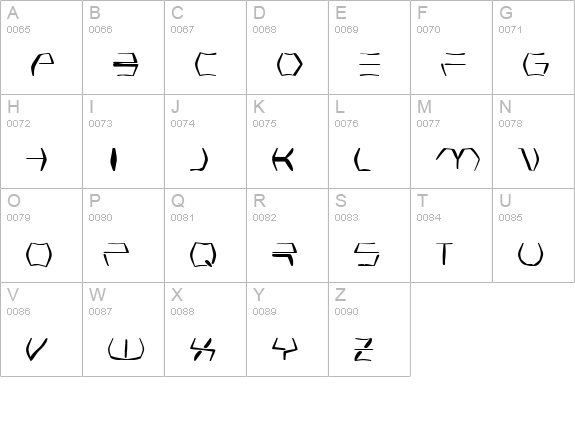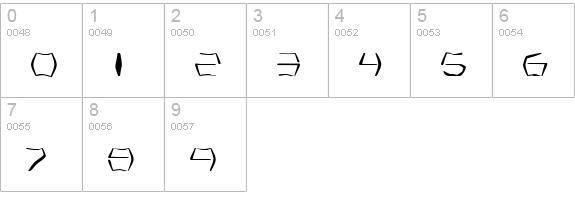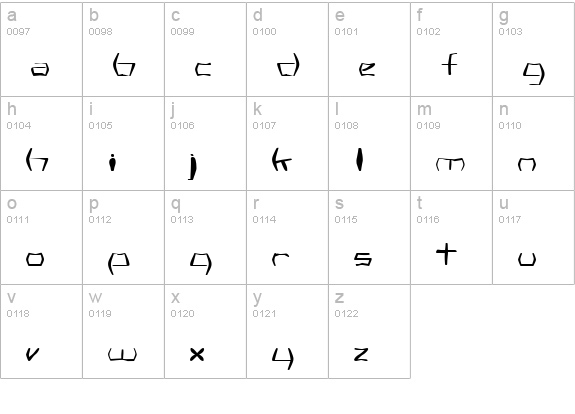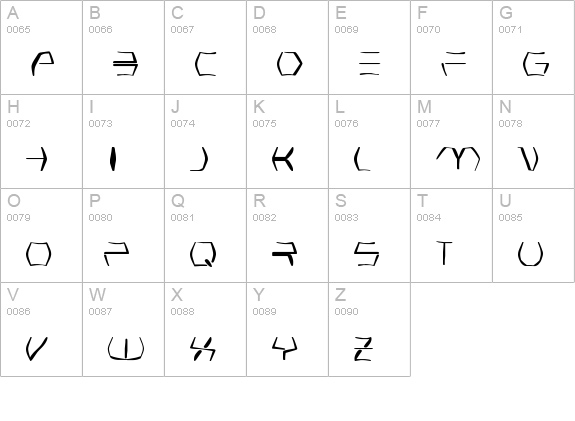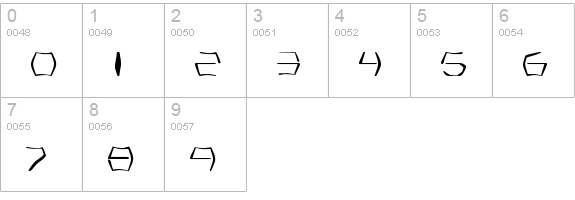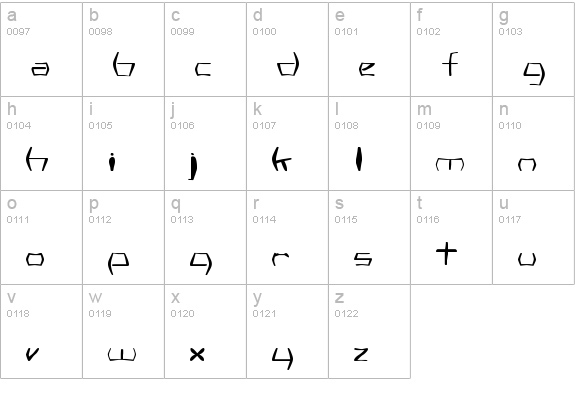
Kopernikus font is a modern and elegant typeface that exudes sophistication and style. With its clean lines and balanced proportions, this versatile font is perfect for a wide range of design projects, from branding to editorial design. The distinctive letterforms of Kopernikus font are both timeless and contemporary, making it a great choice for both print and digital applications. What sets Kopernikus font apart is not just its design, but also the fact that it is available for free download at FontsMarket.com. This means that you can easily access this high-quality font without any cost, making it a valuable addition to your font library. Whether you're a seasoned designer looking for a fresh new typeface or a newcomer to the world of typography, Kopernikus font is sure to impress with its refined aesthetic and versatility.